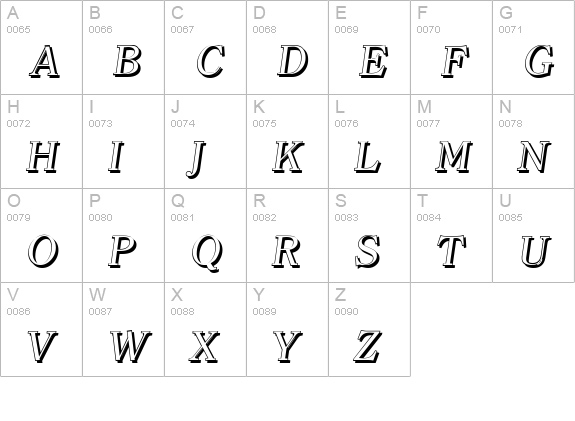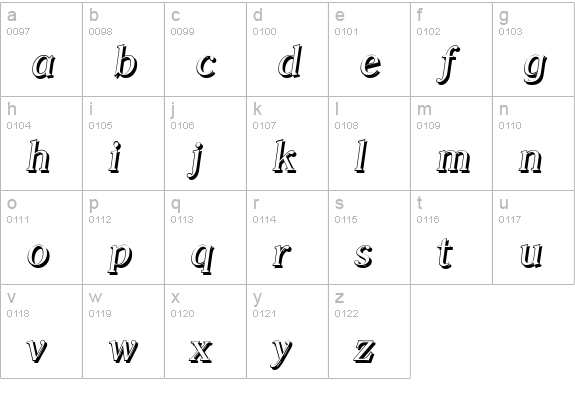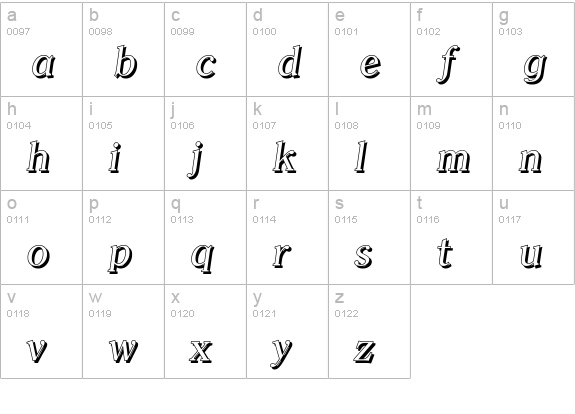
ClearfaceShadow-Italic Font Details
ClearfaceShadow-Italic is a distinctive, italic variant in the ClearfaceShadow typeface family \xE2\x80\x94 well suited to design and typography projects.
ClearfaceShadow-Italic is an elegant and sophisticated font that adds a touch of class to any design project. The italic style of this font provides a sense of movement and fluidity, making it perfect for creating eye-catching headlines or stylish quotes. The soft shadows give the text a subtle depth and dimension, adding a unique visual appeal. What makes ClearfaceShadow-Italic even more appealing is that it is completely free to download at FontsMarket.com. This means that you can easily access this beautiful font for your personal or commercial projects without any cost. With its timeless design and versatile usage, ClearfaceShadow-Italic is a must-have addition to any designer's font collection.